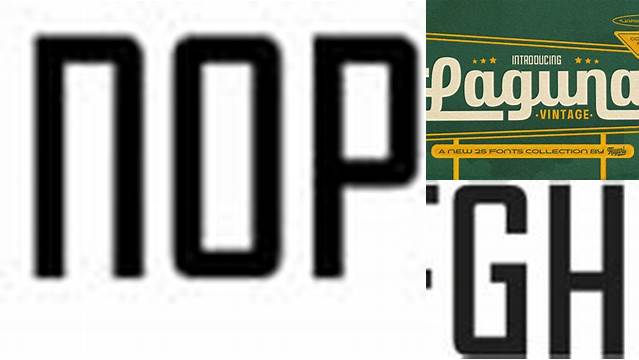
Hey guys, are you on the hunt for a font that screams vintage vibes with a modern twist? Well, look no further! The Laguna Vintage Block Extrabold font is here to save the day, and guess what? You can snag it for free! This article is your ultimate guide to everything Laguna Vintage Block Extrabold, from where to download it to how to use it like a pro. We'll dive deep into what makes this font so special, its unique features, and why it's the perfect choice for your next design project. So, buckle up, and let's explore this awesome font together!
What Makes Laguna Vintage Block Extrabold So Special?
First off, let's talk about why the Laguna Vintage Block Extrabold font is a total game-changer. This isn't your average typeface; it's a bold statement. The extrabold weight gives it a strong presence, perfect for grabbing attention. But the real magic lies in its vintage aesthetic. It perfectly captures the essence of classic design, making it ideal for projects that aim for a retro or handcrafted feel. Think of it as the visual equivalent of a well-loved record – instantly recognizable and full of character. The font's blocky design ensures excellent readability, even at larger sizes, making it versatile for a variety of uses, from headlines and titles to posters and logos. The Laguna Vintage Block Extrabold font brings a sense of nostalgia and authenticity to your work that is hard to replicate with other fonts. This font is a visual journey back in time, evoking the charm of vintage signage, posters, and advertisements. Its unique blend of boldness and vintage styling makes it a standout choice. The font’s sturdy build ensures it remains legible and impactful, making it suitable for a wide array of applications. Whether you're designing a poster for a retro event or branding a vintage-inspired product, this font provides the perfect visual language. Imagine the projects you can create using this amazing font. Also, consider how much you can enhance your audience's perception by implementing a design that reminds people of the past. The font is like a time machine for your designs, giving them a unique, memorable look. It's not just about the letters; it's about the feeling it evokes.
Beyond its aesthetic appeal, Laguna Vintage Block Extrabold is remarkably versatile. Its robust design ensures it remains legible and impactful, regardless of the size or application. This makes it an ideal choice for headlines, titles, and any area where you want to make a bold statement. The font's strong visual impact will instantly draw the viewer's eye. Also, it lends itself to a wide range of design projects. Whether you're creating a website header, designing a poster for a vintage event, or branding a retro-inspired product, this font will provide the perfect visual language. With its bold and distinctive appearance, Laguna Vintage Block Extrabold allows you to add a unique and memorable look to your designs. It's the perfect combination of style and readability. This means you can use it on websites, in print materials, and even for creating eye-catching social media graphics. Plus, the extrabold weight ensures that your message gets noticed, no matter the context. The versatility of this font is one of its greatest strengths, making it a go-to choice for designers across various industries. From creating compelling logos to designing impactful marketing materials, the possibilities are endless. It's a true workhorse that will elevate your creative projects. Let's be real, who wouldn't love a font with so much charm and functionality? You can use it for pretty much anything. Its versatility makes it perfect for a wide range of applications. From creating website headers to designing posters, the possibilities are truly limitless. If you need a font that's both stylish and easy to read, this is the one for you.